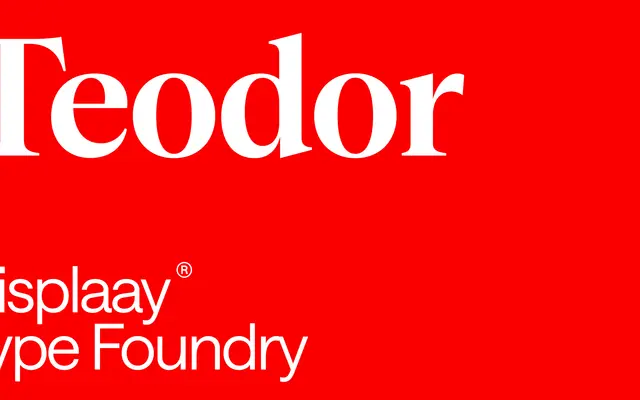
A neo-classical serif with romantic character, offered in eight weights with matching italics and a variable font spanning weight and slant axes.
Framed around Romantic movement references and Spanish art history, this high-contrast serif sits comfortably in editorial, fashion and cultural publishing contexts. Sixteen static styles run from Thin to Heavy with full italic companions, and the variable font exposes weight and slant axes for fluid typographic control. The display-oriented proportions and contrast ratios make it better suited to large sizes than continuous text.
Displaay describe it as a Romantic Modern Neo-Classical Serif, placing it in the tradition of high-contrast classical serifs with a romantic sensibility rather than strict rationalist construction.